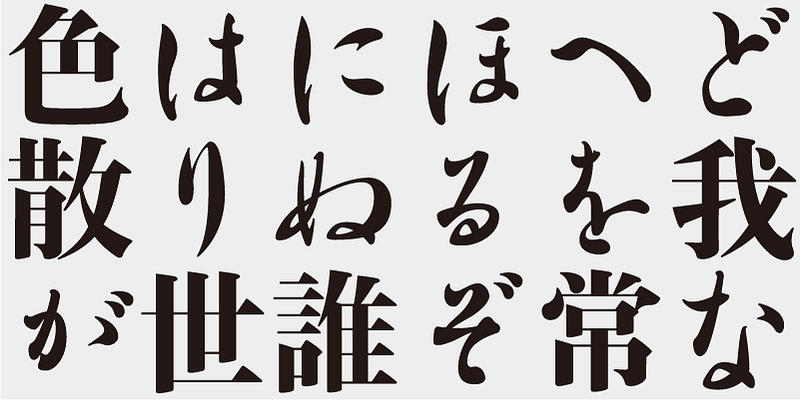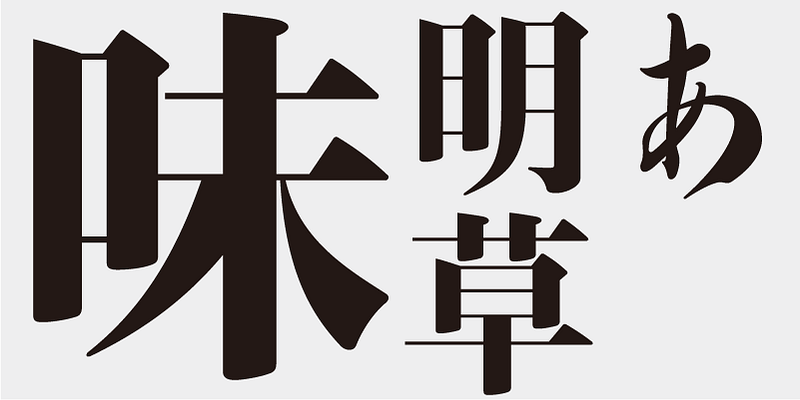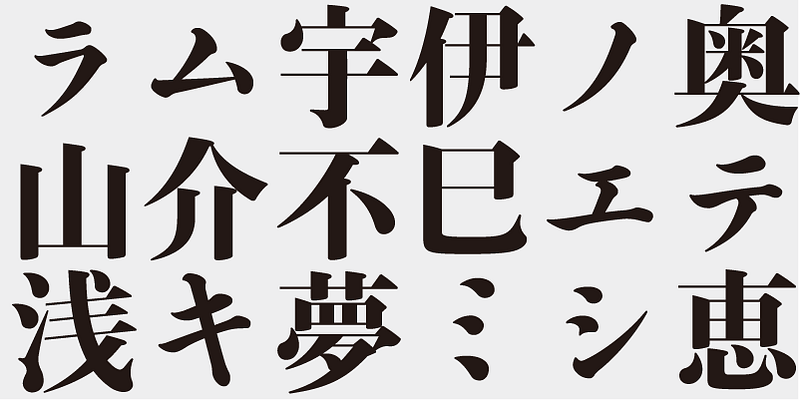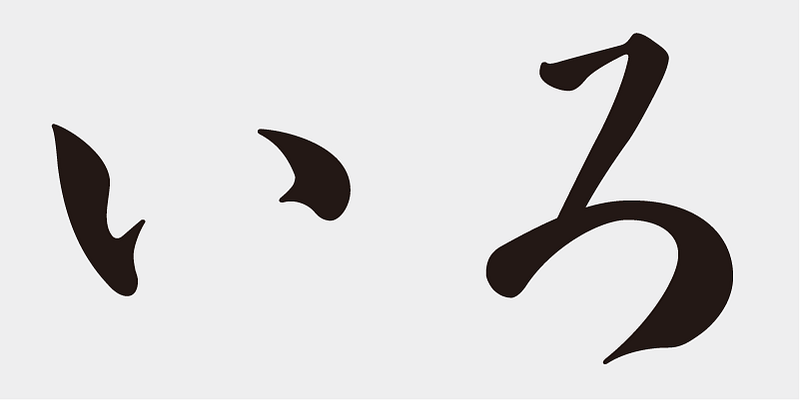
Although Ajimin has the flavor of hot metal type, it is not intended to be a revival, but a new typeface for display purposes. Like Bodoni, its vertical strokes are clear and heavy and its horizontal strokes are precise and thin. Its elements possess strength and stability.
Ajimin Modern’s elements are more sharply designed than those of Ajimin – the start and finish of vertical strokes are lowered for increased sharpness, and the horizontal strokes are cut vertically at the start and are thinner with a uniform width. Ajimin Modern is a sharp and elegant Mincho-style typeface.
This typeface is designed to be used in larger type sizes (for posters, for example), although it’s legible in smaller sizes. As the type size increases, the elegance of each stroke element becomes more visible.
Onono Toufu, Fujiwara-no Sukemasa, and Fujiwara-no Yukinari were calligraphy masters of the middle Heian period. The three were called “San-seki and they heralded a golden age of Japanese kana calligraphy, which continues to be influential today.
Ajimin’s hiragana and katakana characters were derived from Manyo-gana (kanji, Chinese ideographic characters). The design of these characters transforms the cursive (sou-sho) variations and simplifies strokes.
Ajimin Modern So/EB does not have Mincho-style kana characters, but instead has a set of kana characters named “Sou” (after the “Sou-no-kana” style), which retain the quality of an older cursive brush-script style.
It may seem as if the Mincho-style letter forms are radically stylized, but in fact, the shapes are not far from those of brush-script letters. Instead, it is the kana characters included in a “Regular” style brush-script typeface that do not fit well, because of the excessive stylization in the typographic processes. If you typeset something, this becomes apparent.
Ajimin
Ajimin has the flavor of hot metal type and, like Bodoni, its vertical strokes are clear and heavy and its horizontal strokes are precise and thin. Its elements possess strength and stability. Ajimin is a unique Mincho-style display typeface. Ajimin Modern’s elements are more sharply designed, but that sharpness is balanced by the richness and elegance of the design. Ajimin’s biggest feature is its 10 kana variations, ranging from running-hand-like designs, to revivals of designs from the age of hot metal type, to modern style kana. These variations make Ajimin useful for a wide range of purposes.